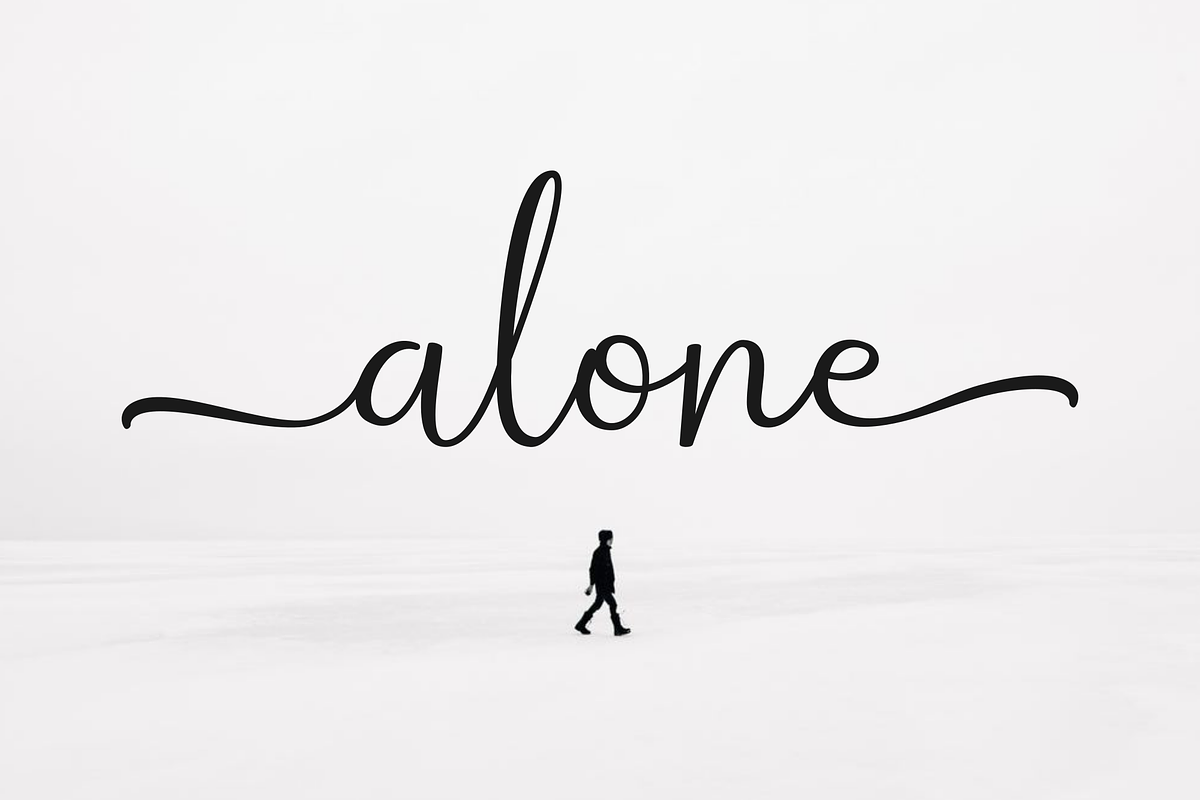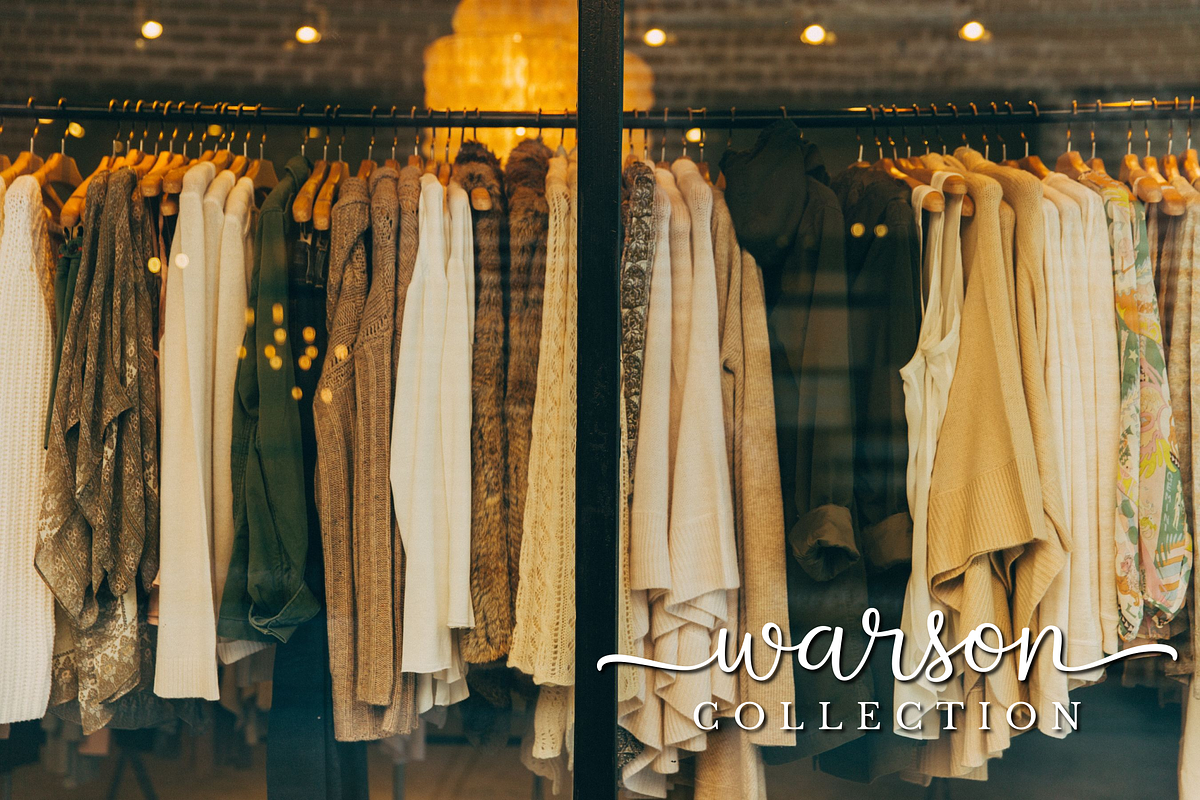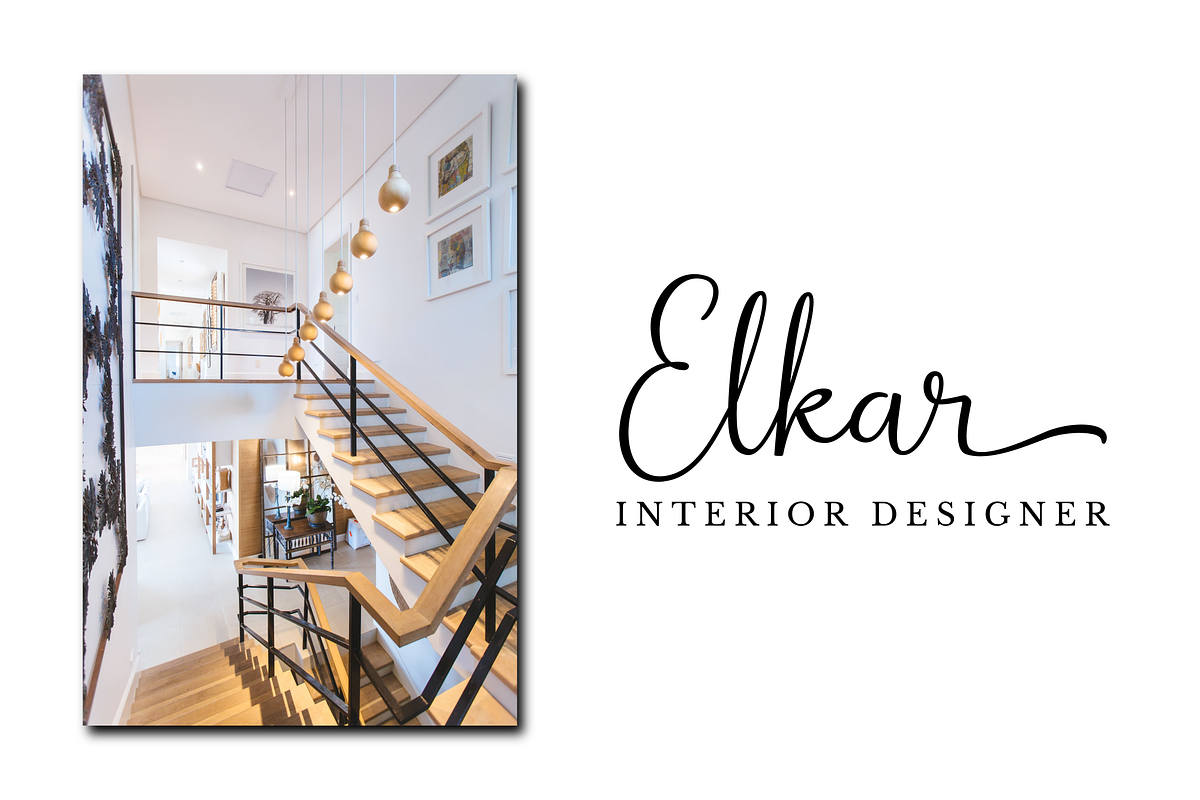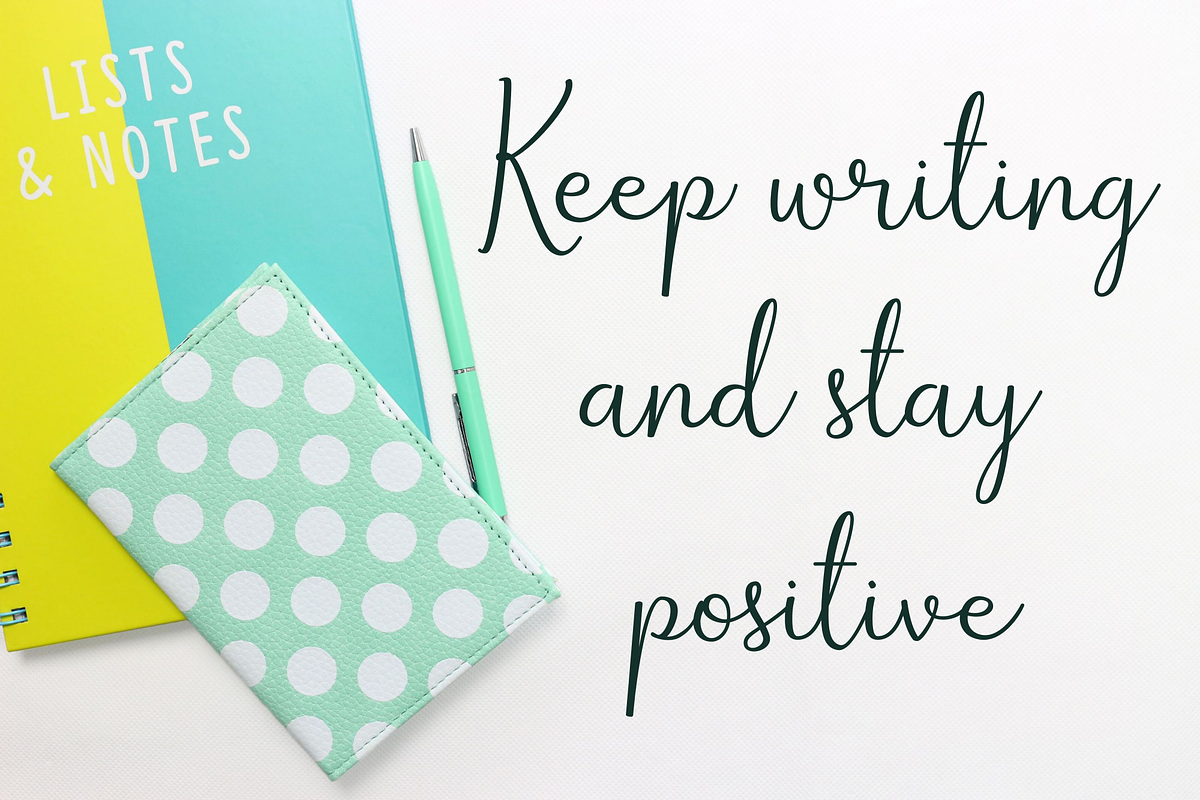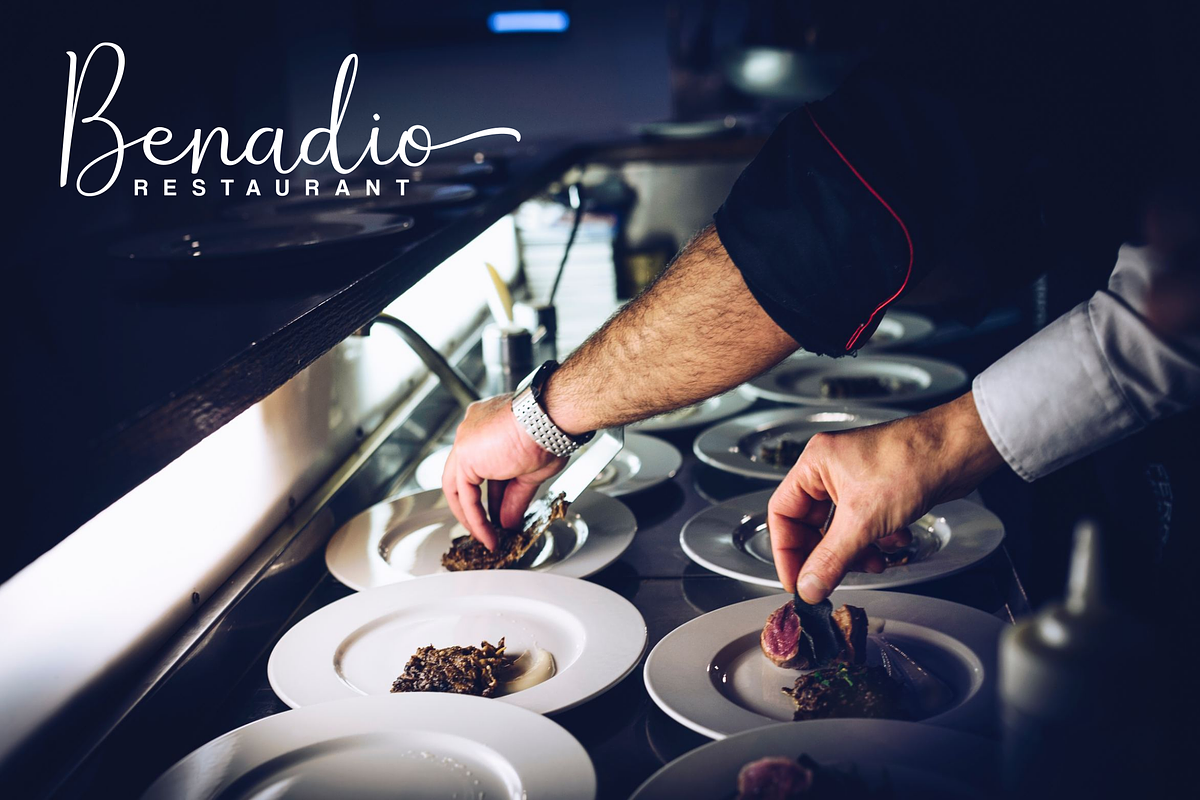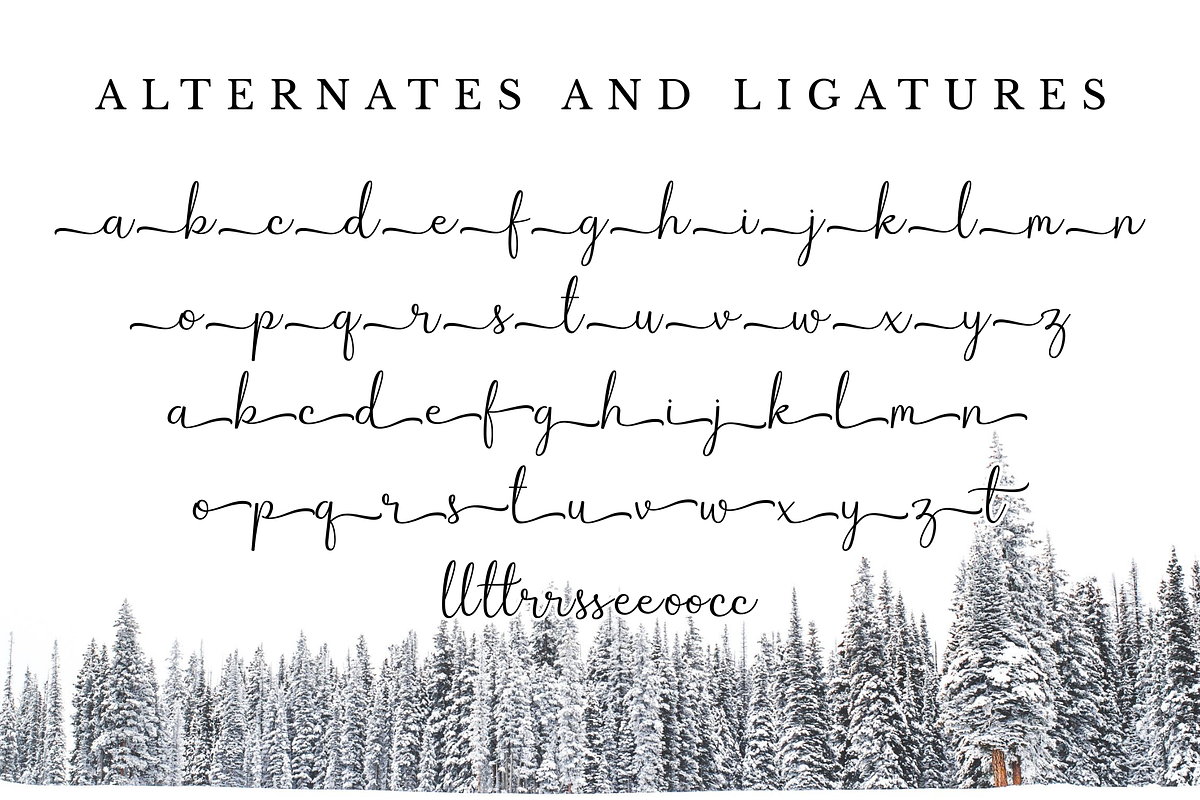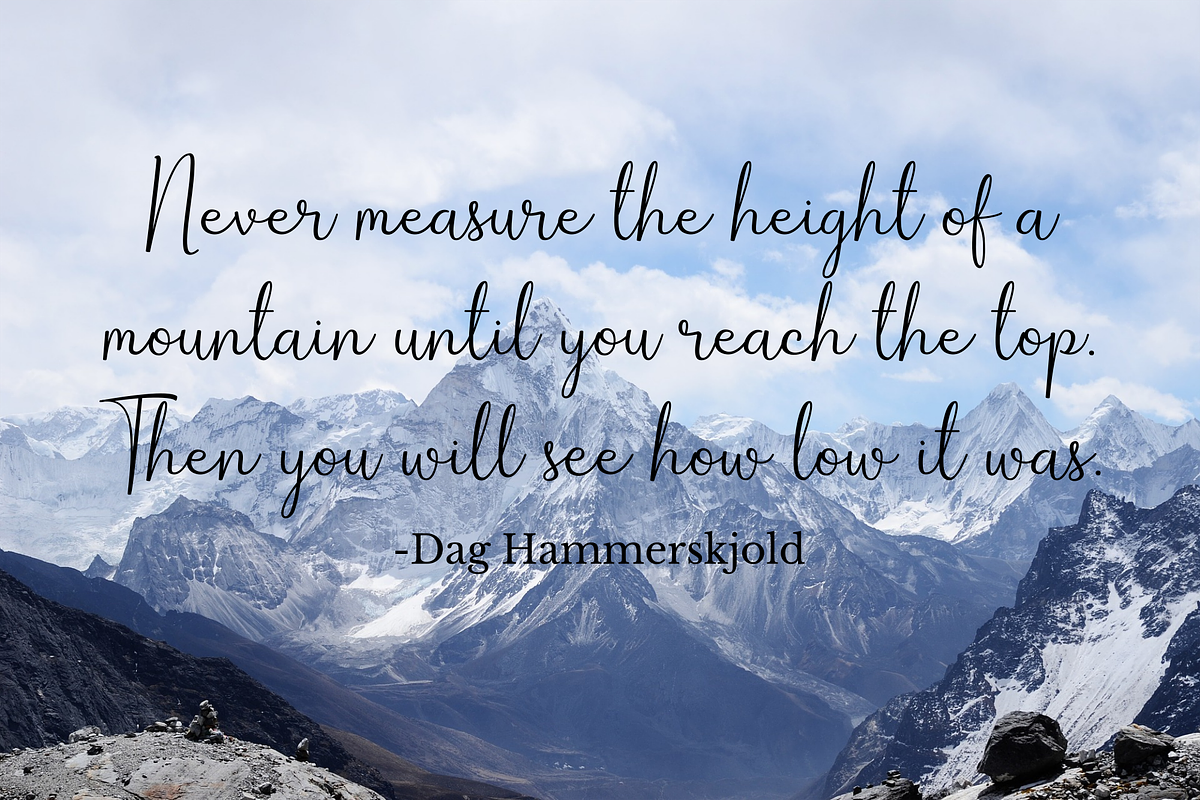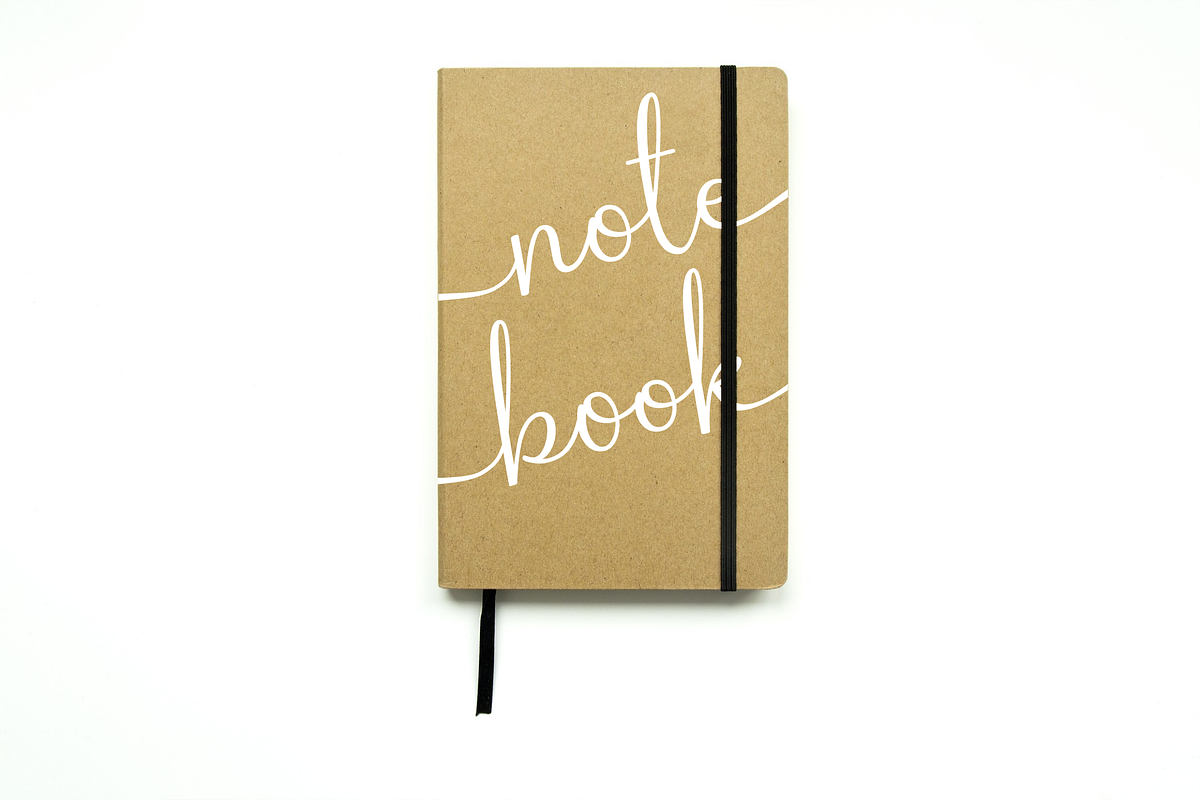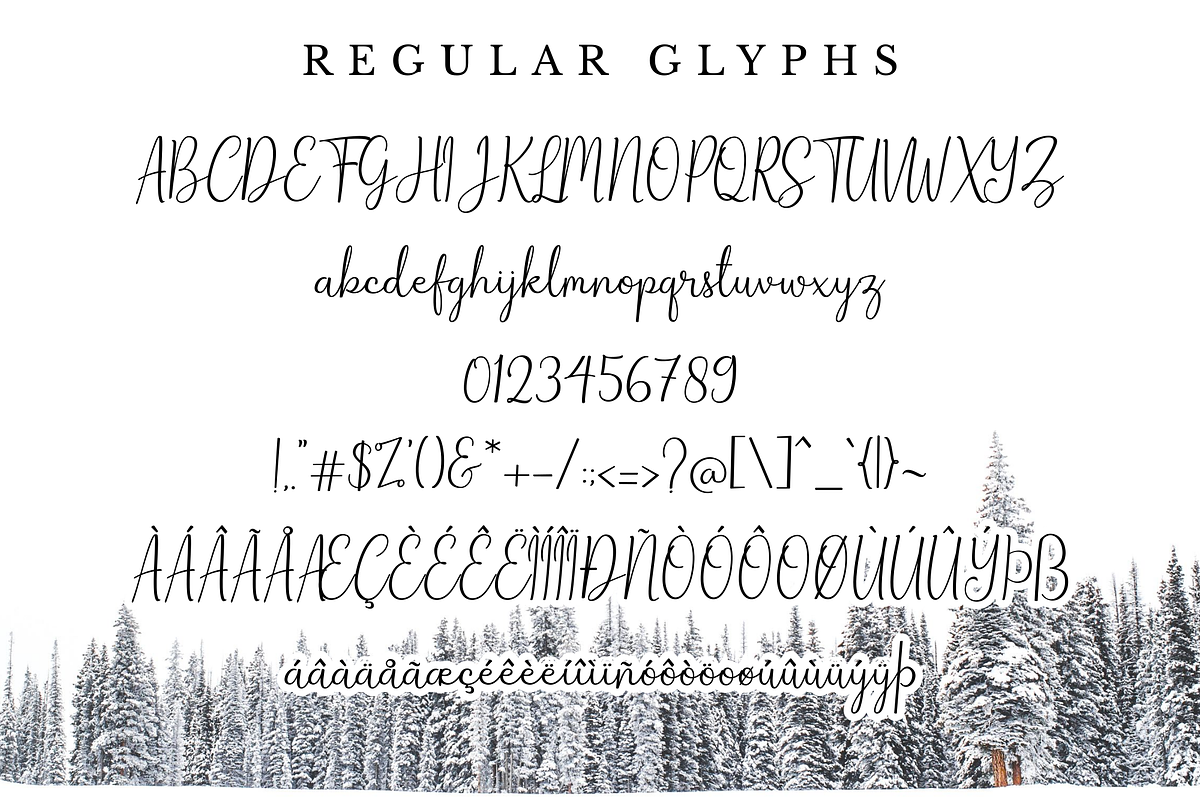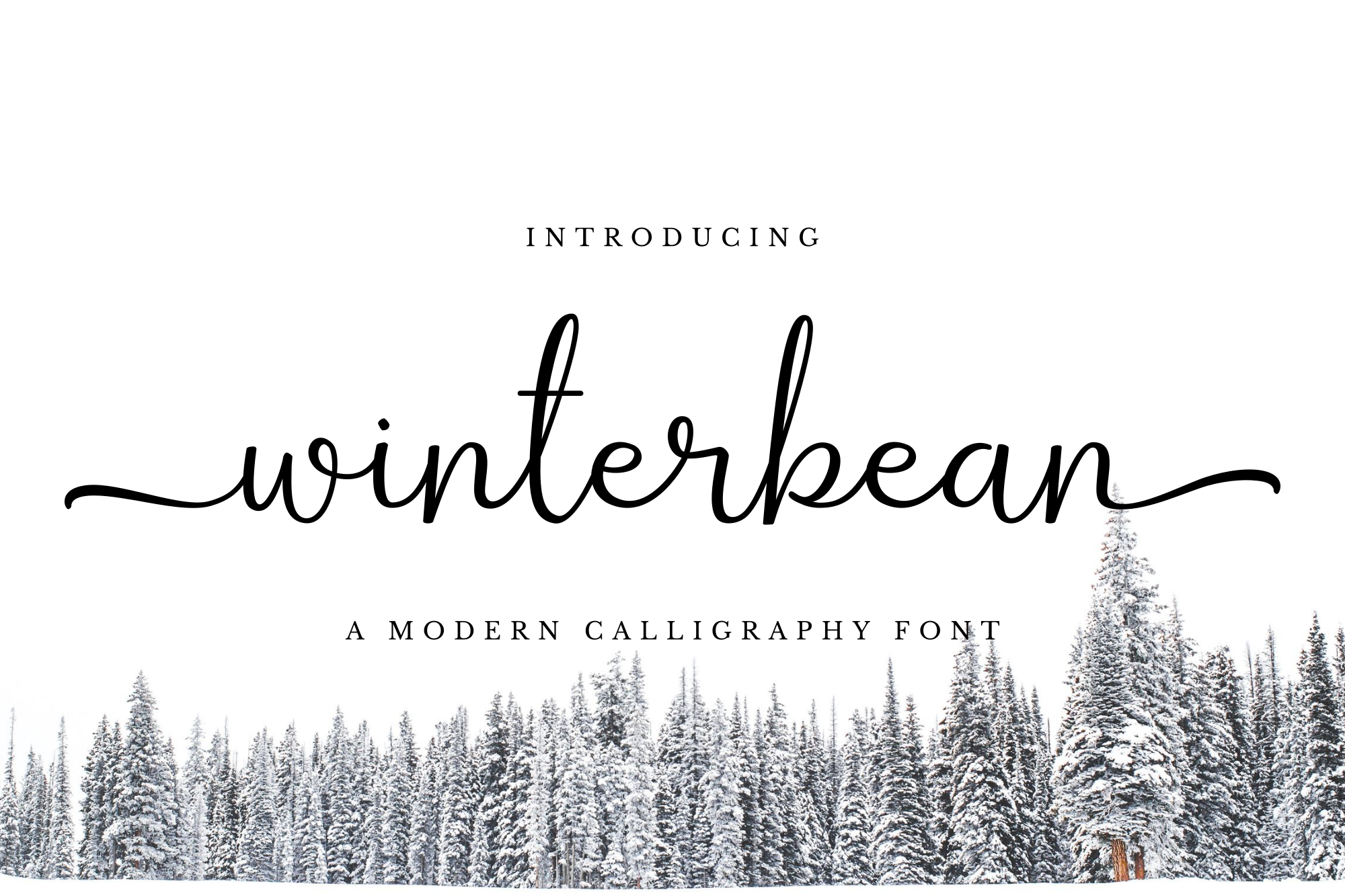
Winterbean - Modern Calligraphy Font
Winterbean is a beautiful modern calligraphy font. It comes with some alternates that make the font look beautiful and elegant.
It’s perfect for logos, product packaging, wedding invitations, branding, headlines, signage, labels, signature, book covers, posters, quotes and more. And this Font has given PUA Unicode (specially coded fonts). so that all the alternate characters can easily be accessed.